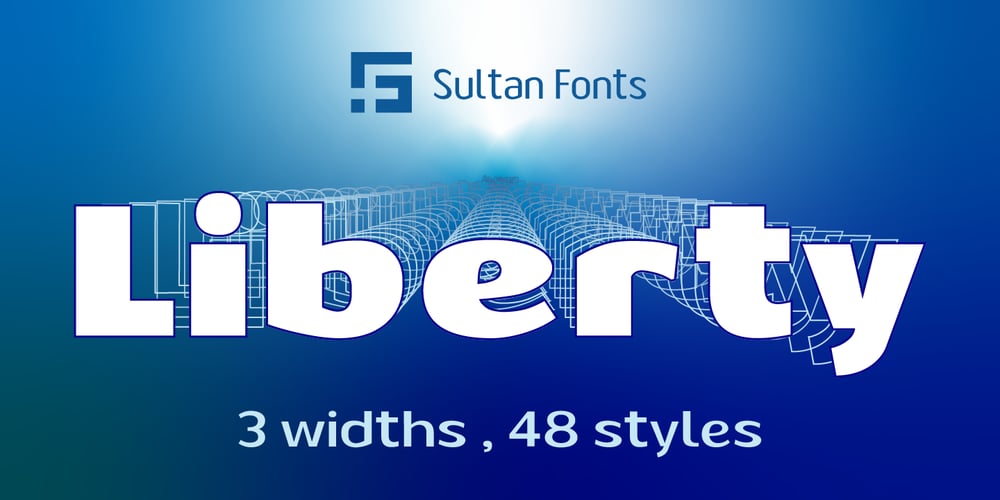
SF Liberty Font Family was designed by Sultan Maqtari and published by Sultan Fonts. SF Liberty contains 48 styles and family package options. It is a big work that started with Windows in Aden and was redesigned and tuned on an Apple device in Cairo.Liberty is an active contemporary variable font, complete with a flexible range of cases tailored to responsive layouts.The font is clear and legible in small sizes, suitable for printing for large texts, web pages, and other visual uses.Language:Latin defaultLatin AzerbaijaniLatin CatalanLatin Crimean TatarLatin KazakhLatin MarshalleseLatin DutchLatin TatarLatin Turkish